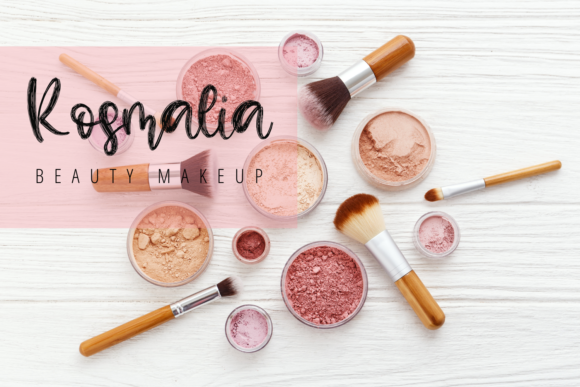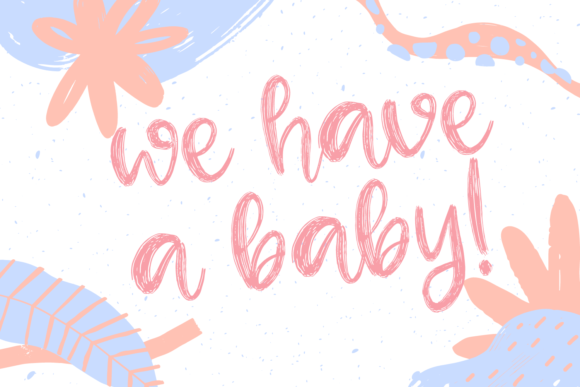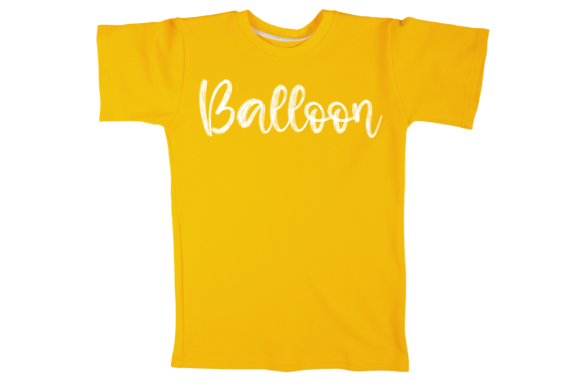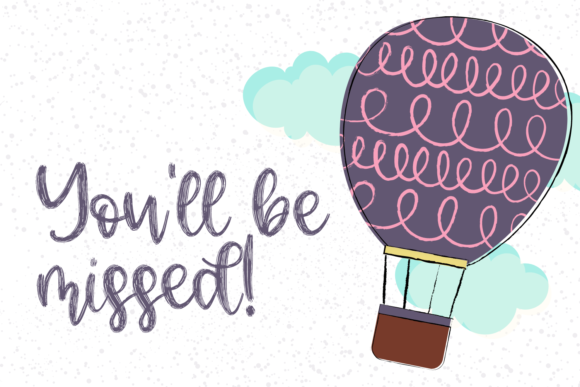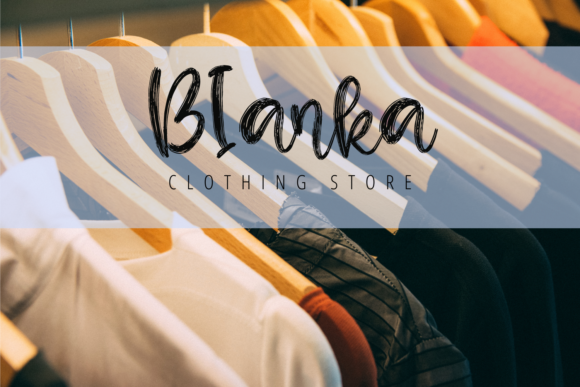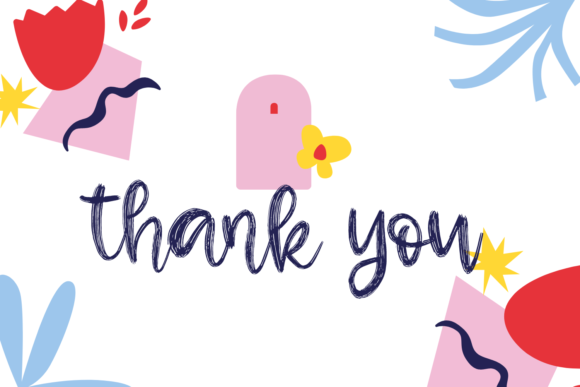
Introducing Delish Font: The Perfect Handwritten Font for Creative Projects
Are you a designer, crafty person, or simply someone who loves to add a personal touch to their projects? Look no further than Delish Font, a fun and unique handwritten font that’s perfect for a wide range of creative endeavors. In this article, we’ll dive into the features and benefits of Delish Font, and explore how it can elevate your business branding, social media graphics, blog headers, and more.
What is Delish Font?
Delish Font is a carefully crafted handwritten font that boasts a dry brush texture with rough details. This distinctive look gives it a charming, organic feel that’s sure to capture attention. The font has been designed to be versatile and adaptable, making it suitable for a variety of projects, from business branding to fashion apparel, sports communities, film, photography, hobbies, and more.
Key Features of Delish Font
- Handwritten style: Delish Font has a warm, personal feel that’s perfect for adding a touch of personality to your projects.
- Dry brush texture: The font’s texture gives it a unique, organic look that’s reminiscent of hand-painted signs and artwork.
- Rough details: The rough details add a layer of depth and visual interest to the font, making it perfect for headlines, titles, and other display text.
- Versatile: Delish Font can be used for a wide range of projects, from digital graphics to print materials.
Use Cases for Delish Font
So, what can you use Delish Font for? The possibilities are endless! Here are a few ideas to get you started:
- Business branding: Use Delish Font to create a unique and memorable logo or tagline for your business.
- Instagram quotes: Add a touch of personality to your Instagram quotes and captions with Delish Font.
- Blog headers: Use Delish Font to create eye-catching headlines and titles for your blog posts.
- Fashion apparel: Delish Font is perfect for designing custom t-shirts, hoodies, and other fashion items.
- Sports communities: Use Delish Font to create motivational posters, flyers, and other graphics for sports teams and events.
- Film and photography: Delish Font can add a touch of glamour and sophistication to your film and photography projects.
- Hobbies and crafts: Use Delish Font to create custom graphics and artwork for your hobbies and crafts, such as scrapbooking, card making, and more.
Why Choose Delish Font?
With so many fonts to choose from, why should you choose Delish Font? Here are a few reasons:
- Unique look: Delish Font has a distinctive look that’s sure to set you apart from the crowd.
- High-quality design: The font has been carefully crafted to ensure that it’s clear, legible, and visually appealing.
- Versatile: Delish Font can be used for a wide range of projects, making it a great addition to your font library.
In conclusion, Delish Font is a fun and unique handwritten font that’s perfect for designers, crafters, and anyone looking to add a personal touch to their projects. With its dry brush texture, rough details, and versatile design, Delish Font is sure to become a favorite in your font library. So why wait? Download Delish Font today and start creating stunning graphics and artwork that will capture attention and leave a lasting impression.